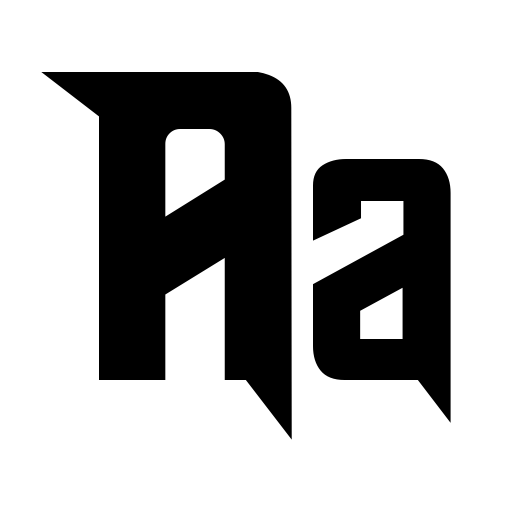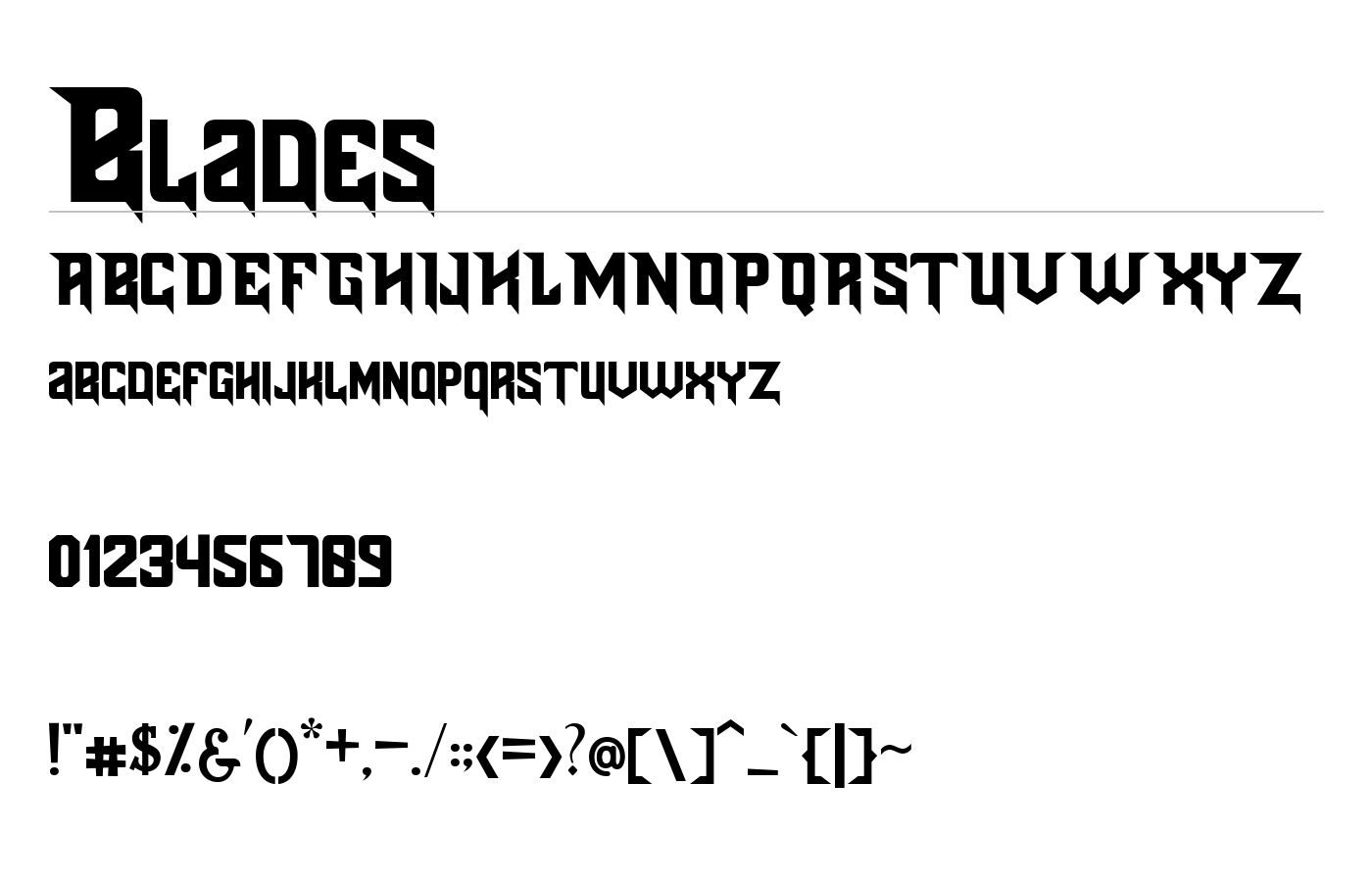
Blades is a bold, condensed display font with sharp, angular strokes that create a striking, edgy look reminiscent of blades or weapons. Its strong geometric forms and dramatic points give it a modern, aggressive personality perfect for logos, posters, and branding that seek to convey power, intensity, and a cutting-edge style. This font works best in headlines or titles where it can command attention and set a dynamic, impactful tone.
Blades Font
About Blades Font
| Font family | Blades Font |